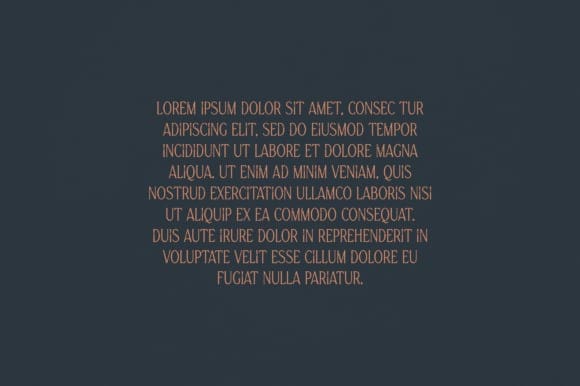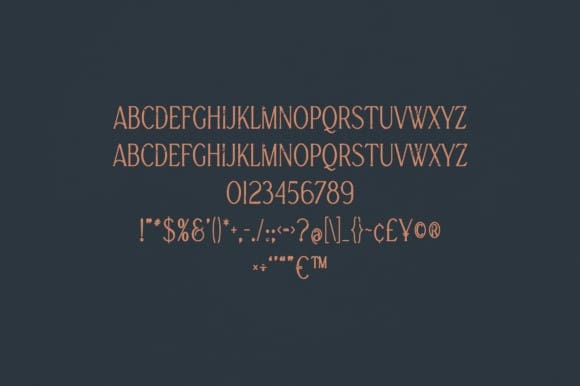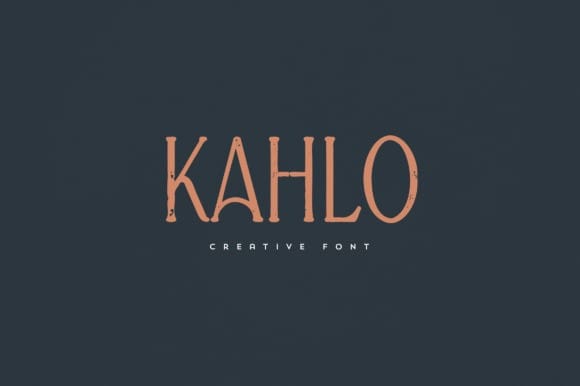
Kahlo Font
Kahlo Font is an elegant and versatile font that will make your typography truly unique! It will enchant every logo, branding, headline, or plain text!